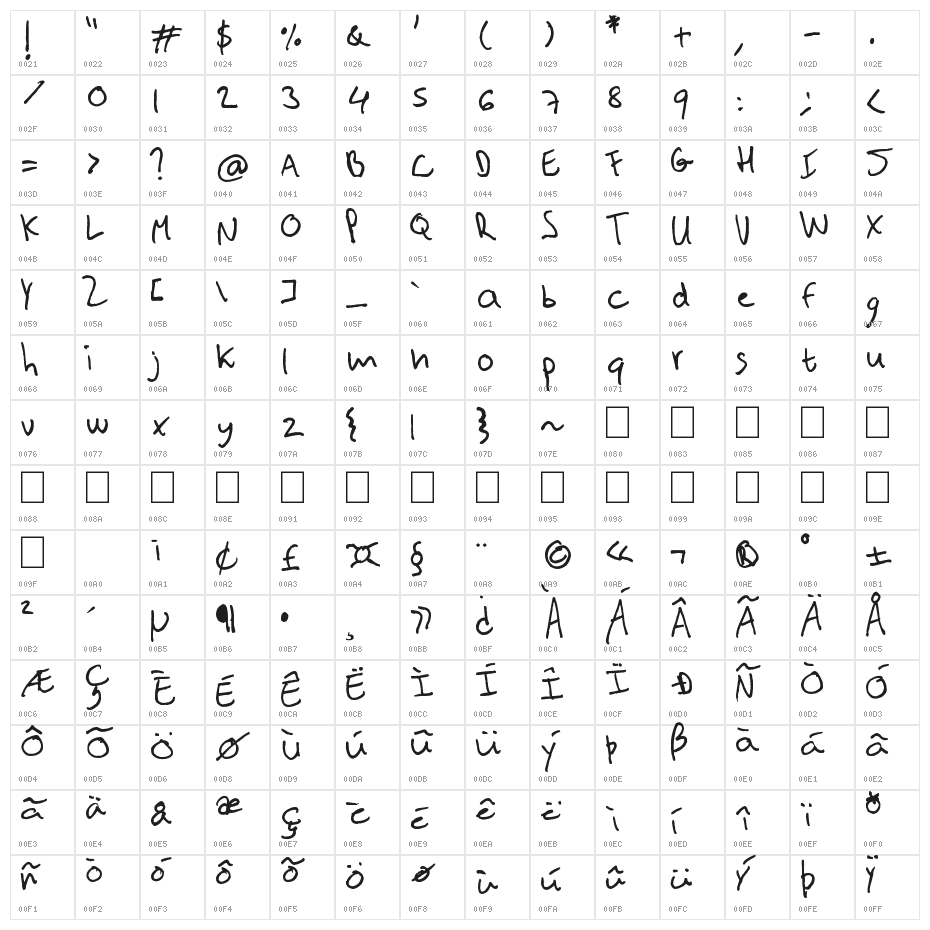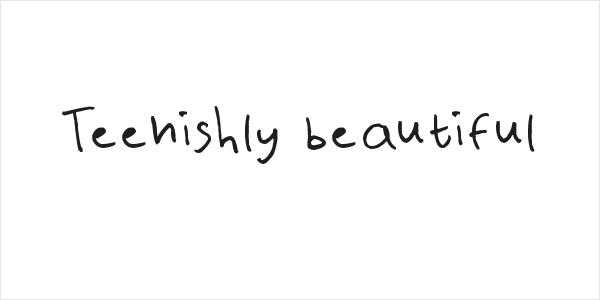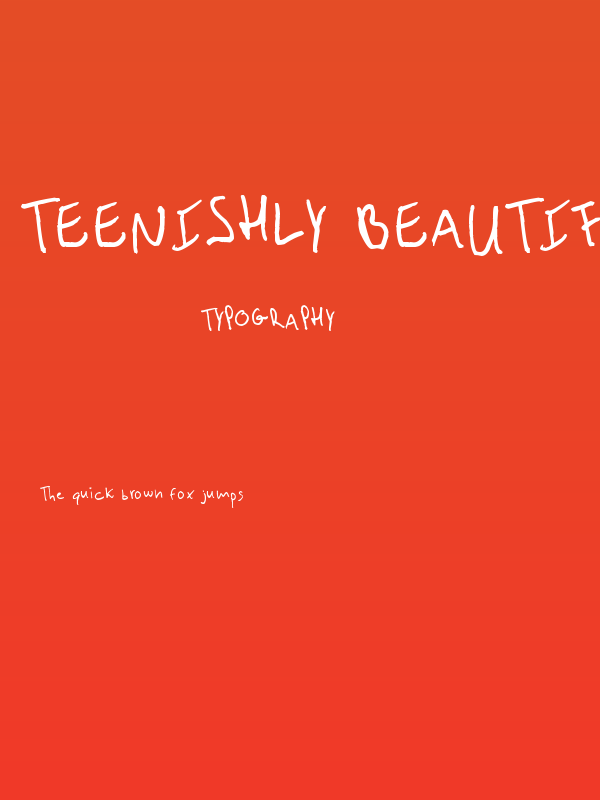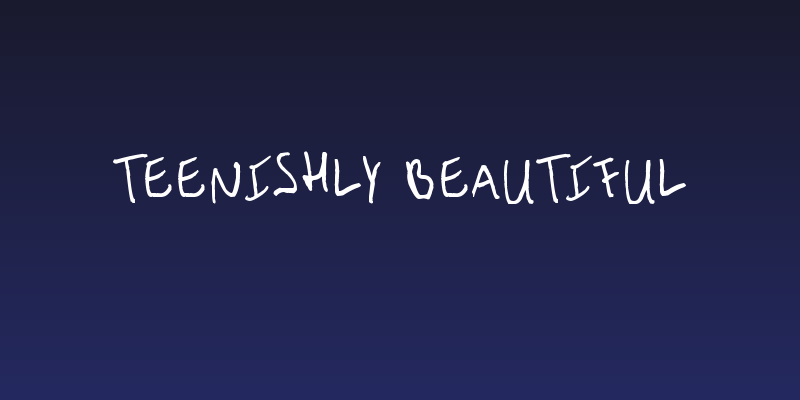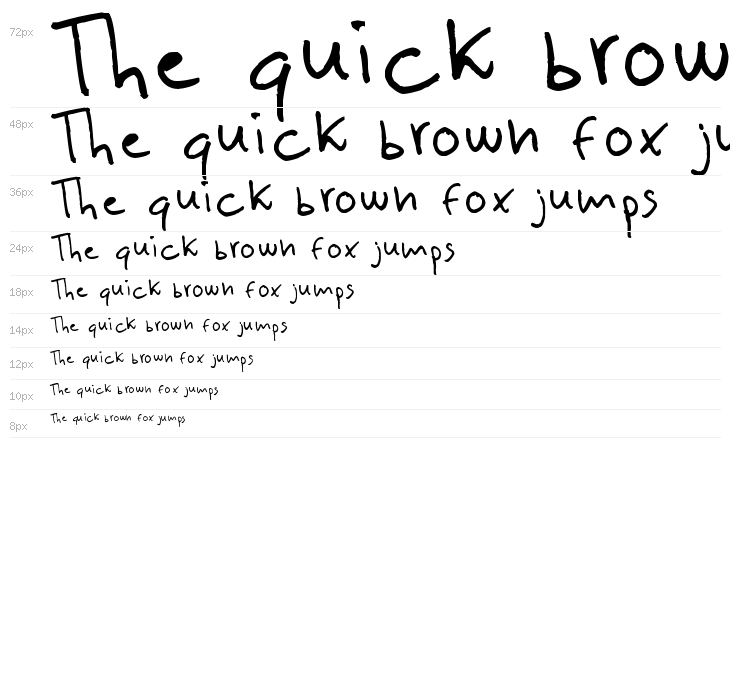
Teenishly beautiful Font
Teenishly beautiful Description
This font exudes a casual, handwritten style that is both playful and approachable. The characters are unevenly spaced, giving it a natural, organic feel reminiscent of a personal note or diary entry. The strokes are bold and slightly irregular, adding to the charm and authenticity of the handwritten aesthetic. The uppercase and lowercase letters maintain a consistent style, with rounded edges and a slight slant that suggests movement and energy. Numbers and special characters follow the same informal style, making the font versatile for various creative projects.